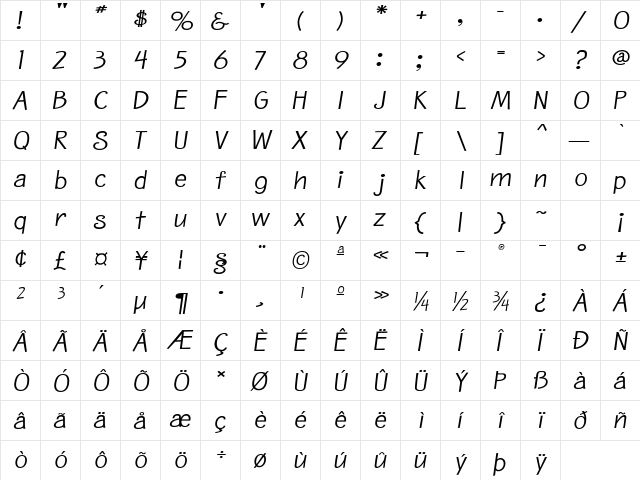
Birdlegs MdItSBG
Design Context for Birdlegs Typeface
Birdlegs takes a measured approach to typography — its balanced proportions and neutral character make it a reliable workhorse for both digital and print work.